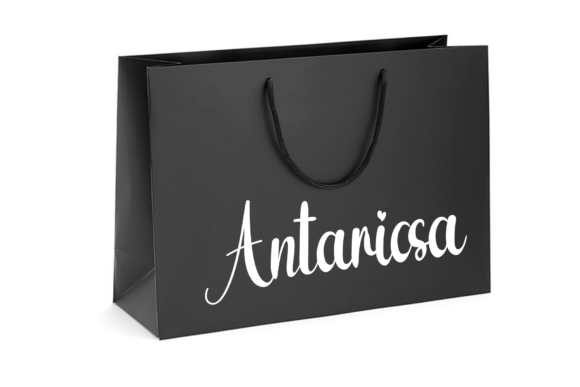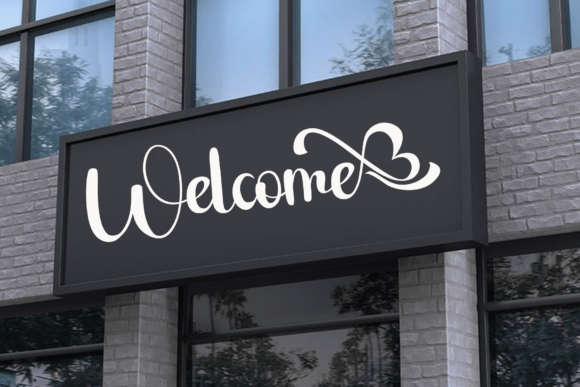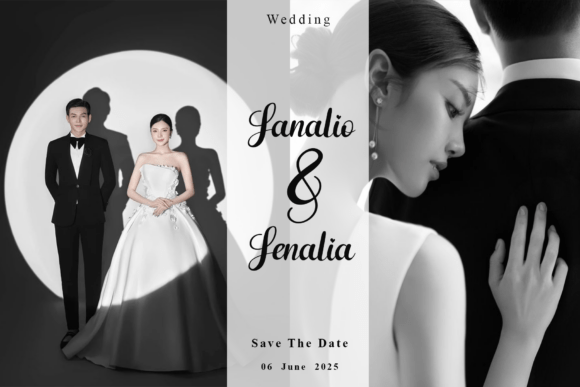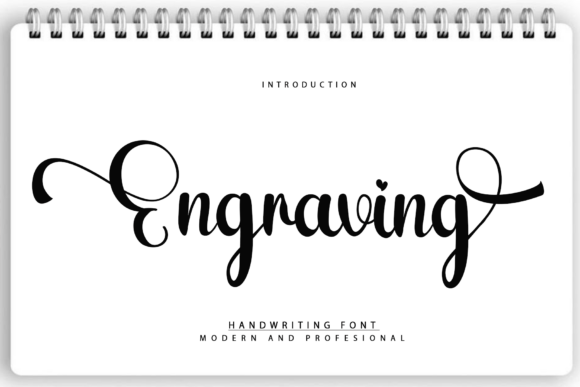
Discover the Elegance of Engraving Font: Elevate Your Designs with Timeless Class
Are you a designer or crafter looking to add a touch of sophistication and elegance to your projects? Look no further than the Engraving Font, a trendy handwritten font that embodies the perfect blend of contemporary style and classic calligraphy. Inspired by timeless elegance, Engraving Font is designed to bring a sense of refinement and luxury to any design it touches.
The Inspiration Behind Engraving Font
Engraving Font draws its inspiration from the art of traditional calligraphy, where every stroke and curve is a testament to the artisan’s skill and precision. This font captures the essence of classic engraving techniques, where letters are not just written but crafted with meticulous care. The result is a font that exudes an air of sophistication and class, perfect for projects that demand a high level of elegance.
Key Features of Engraving Font
- Contemporary yet Classic: Engraving Font strikes the perfect balance between modern trends and timeless classic appeal. Its contemporary atmosphere makes it versatile for a wide range of design projects, from modern branding to traditional stationery.
- Impeccable Form: Each letter in Engraving Font is crafted with impeccable form, ensuring that every word and sentence flows beautifully. The attention to detail is evident in the font’s clean lines, balanced proportions, and elegant curves.
- Versatility: Engraving Font is incredibly versatile, making it suitable for a variety of design applications. Whether you’re working on a wedding invitation, a luxury brand logo, or a high-end product packaging, this font can add the perfect touch of elegance.
- Easy to Read: Despite its elegant and sophisticated appearance, Engraving Font remains highly legible. This makes it not only beautiful but also functional, suitable for both headings and body text.
Applications of Engraving Font
The versatility of Engraving Font makes it an excellent choice for a wide range of design projects. Here are some of the most popular applications:
- Wedding and Event Stationery: Add a touch of romance and sophistication to wedding invitations, save-the-date cards, and other event stationery with Engraving Font.
- Luxury Branding: Elevate your brand’s image with a logo or wordmark that exudes luxury and elegance. Engraving Font is perfect for high-end brands looking to make a lasting impression.
- Packaging Design: Whether it’s for a cosmetic product, gourmet food, or high-end electronics, Engraving Font can add a luxurious feel to your product packaging.
- Graphic Design Projects: From brochures and flyers to posters and banners, Engraving Font can bring a level of sophistication to any graphic design project.
Tips for Using Engraving Font Effectively
To get the most out of Engraving Font, consider the following tips:
- Pair with Simplicity: Let Engraving Font be the star of your design. Pair it with simple backgrounds or textures that don’t compete with the font’s elegance.
- Experiment with Colors: While Engraving Font looks stunning in metallic colors, don’t be afraid to experiment with different color schemes. Soft pastels, deep blacks, or rich golds can all bring out different aspects of the font’s beauty.
- Play with Sizes: Engraving Font’s legibility and elegance make it suitable for use at various sizes. Experiment with different sizes to create visual hierarchy and add depth to your designs.
Engraving Font is more than just a font; it’s a design element that can transform your projects with its timeless elegance and contemporary appeal. Whether you’re a designer looking to elevate your branding projects or a crafter seeking to add a touch of sophistication to your handmade goods, Engraving Font is an excellent choice. Its versatility, legibility, and sheer beauty make it a valuable addition to any designer’s toolkit. Discover the elegance of Engraving Font today and bring a touch of class to your designs.